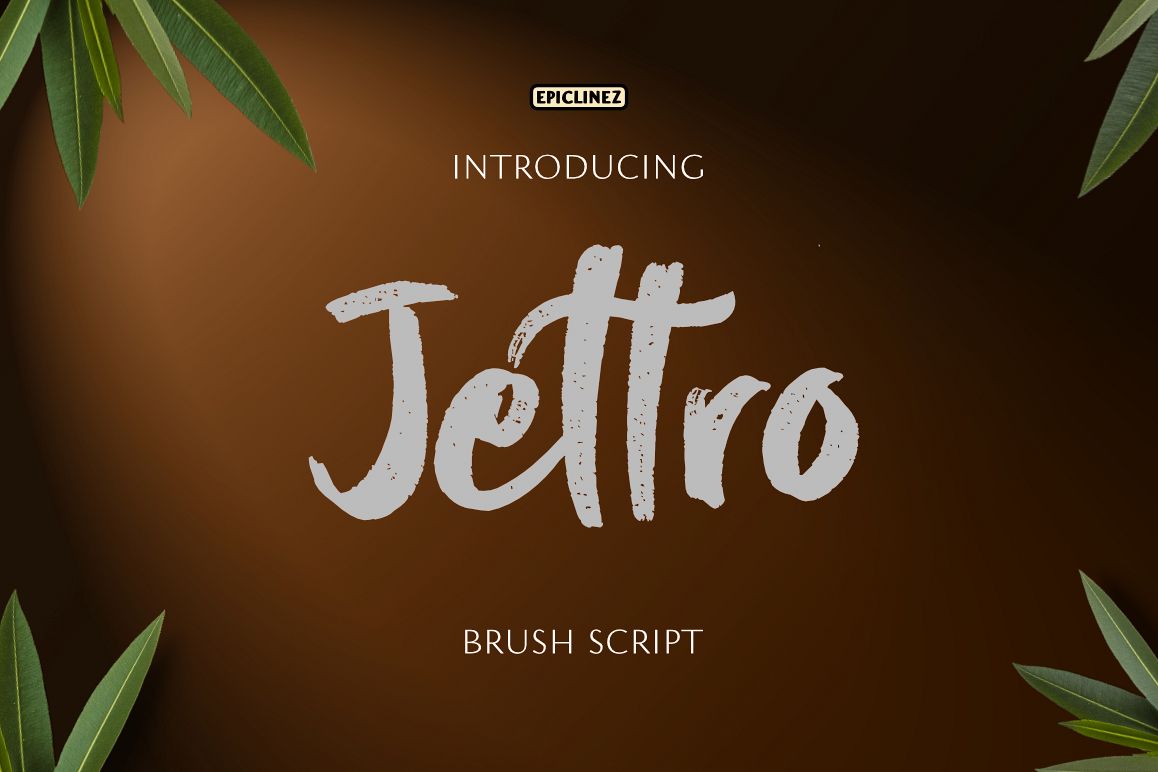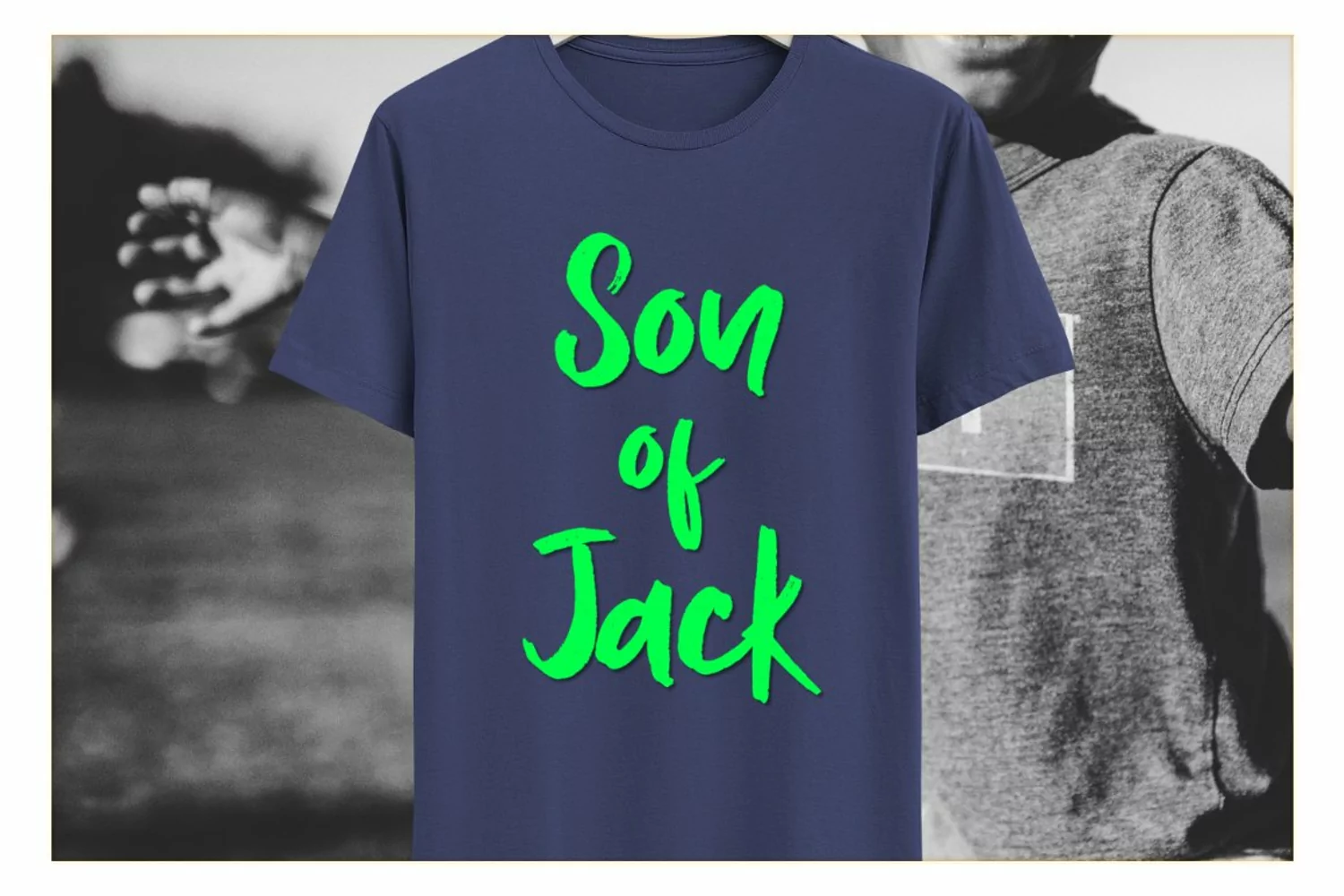
Jettro is a fun and bold handwritten font that will inspire any new design project with its authentic feel!. Very suitable for t-shirts, posters, branding, advertising and many more. It comes with Uppercase, lowercase, numerals, punctuations, and ligatures.